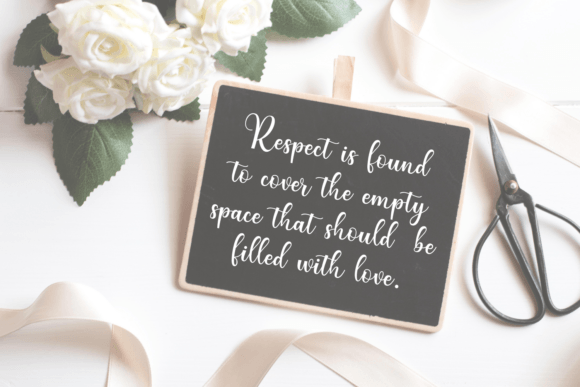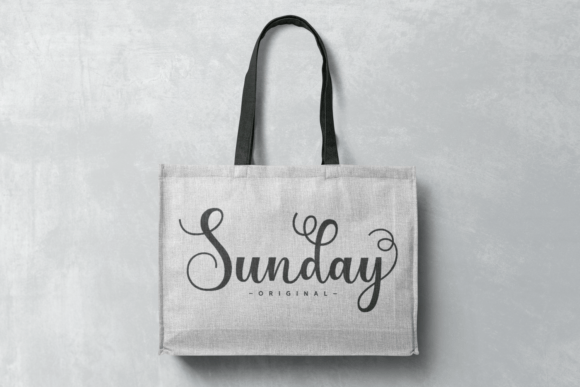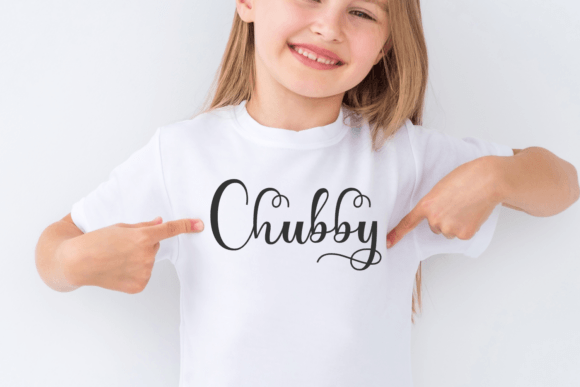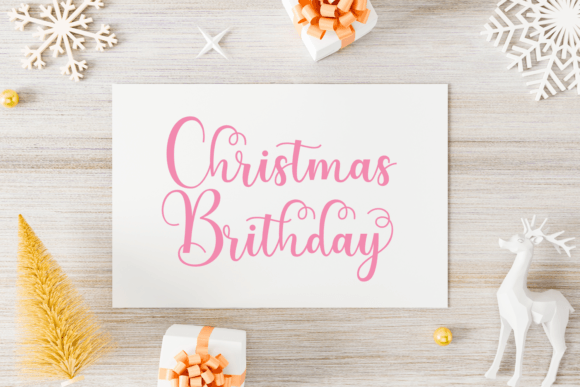
Introduction to Odelia Font Font
Fonts play a crucial role in design, and the Odelia Font font is a typeface that brings both character and versatility to any project. Whether you’re working on a branding project, a website, or a print design, the Odelia Font font offers a unique style that can elevate your work.
Odelia is a beautiful calligraphy font that features elegant, flowing letters.
Its curves and swirls give a soft and romantic look, making it perfect for invitations, greeting cards, and other special projects This font adds a touch of charm and creativity to any design.
Key Features of Odelia Font Font
Why Choose Odelia Font Font?
The Odelia Font font is more than just a typeface – it’s a design tool that helps you communicate your message with style and clarity. Its unique character set and versatile design make it suitable for a wide range of applications, from elegant invitations to bold headlines.
With its carefully crafted letterforms and balanced proportions, the Odelia Font font ensures readability and visual appeal across all mediums.
What makes Odelia Font font special?
The Odelia Font font stands out with its unique design, exceptional readability, and versatility across various design applications.